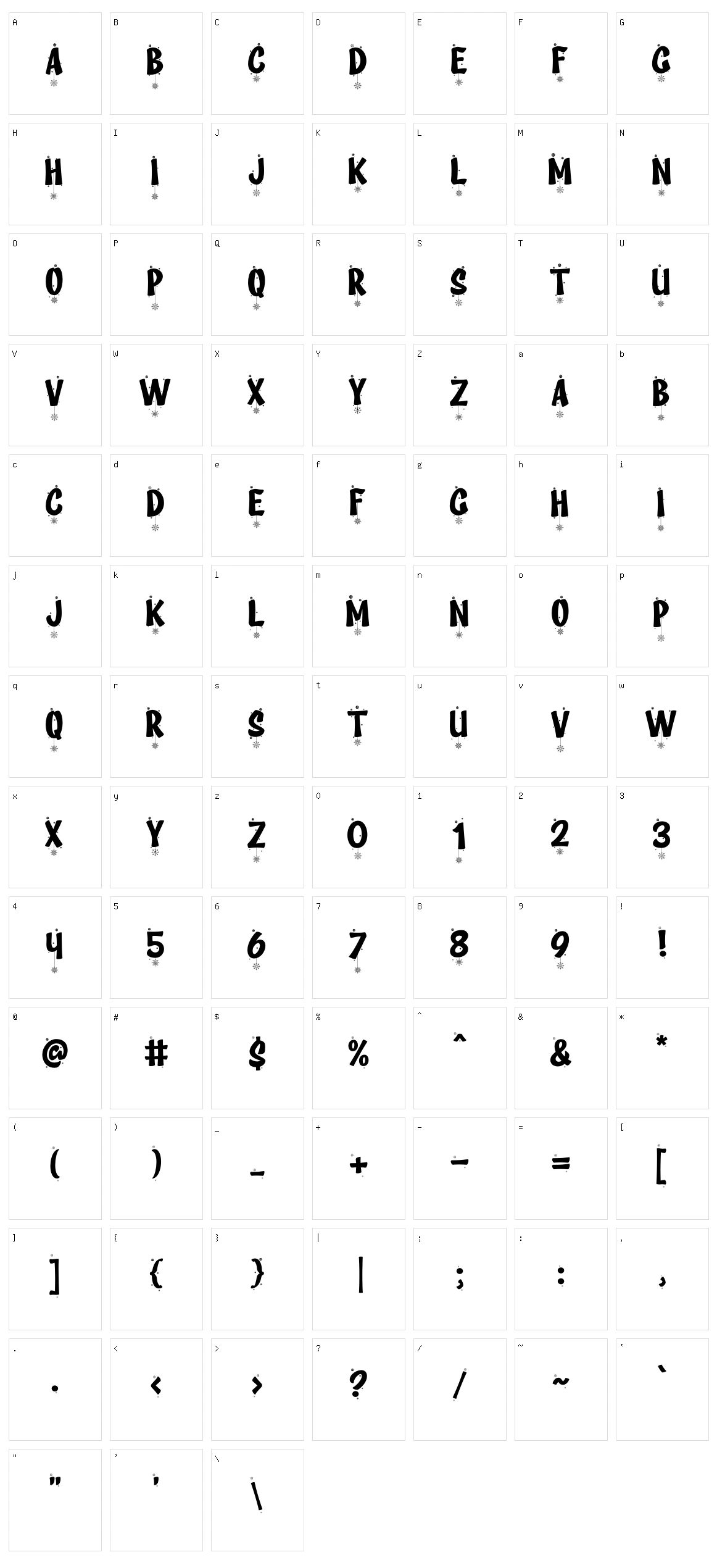
The free font Deiland is carefully designed by Kong Font, showcasing a thoughtful balance of creativity and usability and falls under the Christmas font style. When you download the ZIP file, it contains only 320.16 KB of font files, making it lightweight and quick to download. Please review the license details below to understand permitted usage and distribution rights. If license information is not available, we recommend using this font for personal projects only or contacting the author directly for commercial usage permissions.